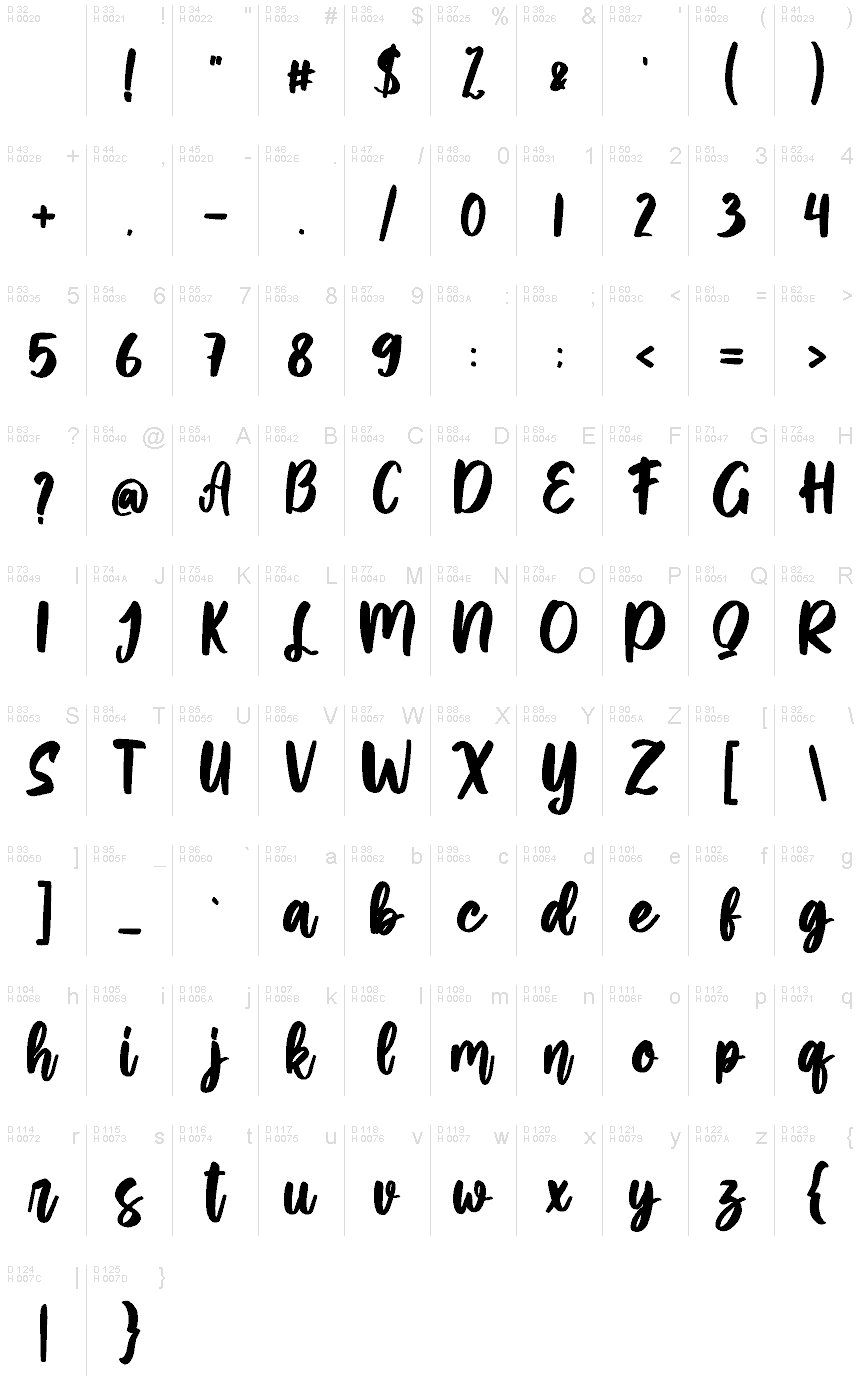
Jartails
Jartails font by Skiiller Studio is an engaging brush typeface characterized by its bold, condensed appearance. With expressive and energetic strokes, it offers a sense of casual elegance and fluid movement. The friendly aesthetic of the font offers a warm expression for the audience.
This free playful font can be used for food menus, coffee shop branding products, business cards, advertisements, greeting cards, subtitles in video projects (advertising and entertainment), logos designs (for startups mostly), t-shirt prints, tattoos designs as well as engraving ideas on wooden materials.